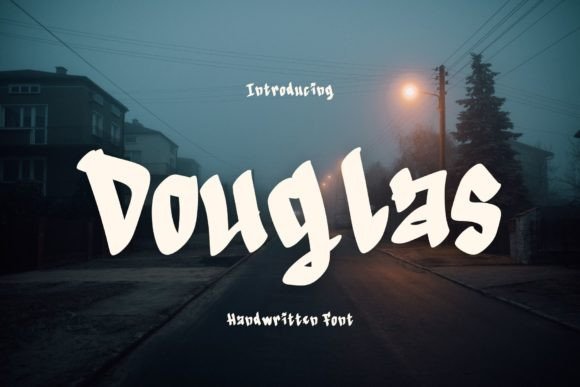
Welcome to the enchanting world of Douglas Font, a whimsical and charming script font, meticulously crafted by Brown Cupple Fonts. This exquisite typeface exudes playfulness and authenticity, captivating your audience with its vibrant personality. Unleash your creativity with Douglas Font for an array of projects, from heartfelt blog posts to captivating logos and branding that leaves a lasting impression.
With Douglas Font at your fingertips, you can craft alluring advertisements that stand out from the crowd and create stunning invitations and greeting cards that convey your heartfelt sentiments with an unmistakable personal touch. Its versatility extends to planners and photo albums, adding a unique charm to your cherished memories, while its decorative flair transforms ordinary spaces into enchanting havens. Embrace the magic of Douglas Font and let your imagination soar!